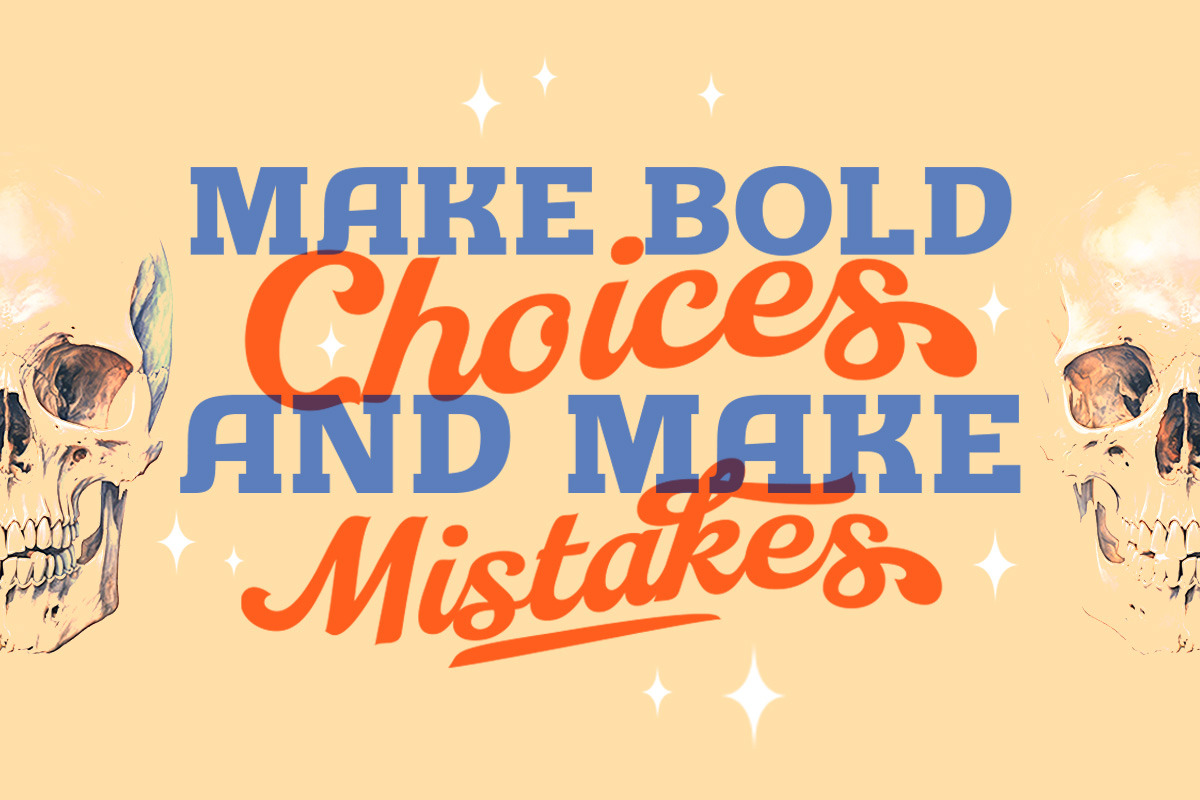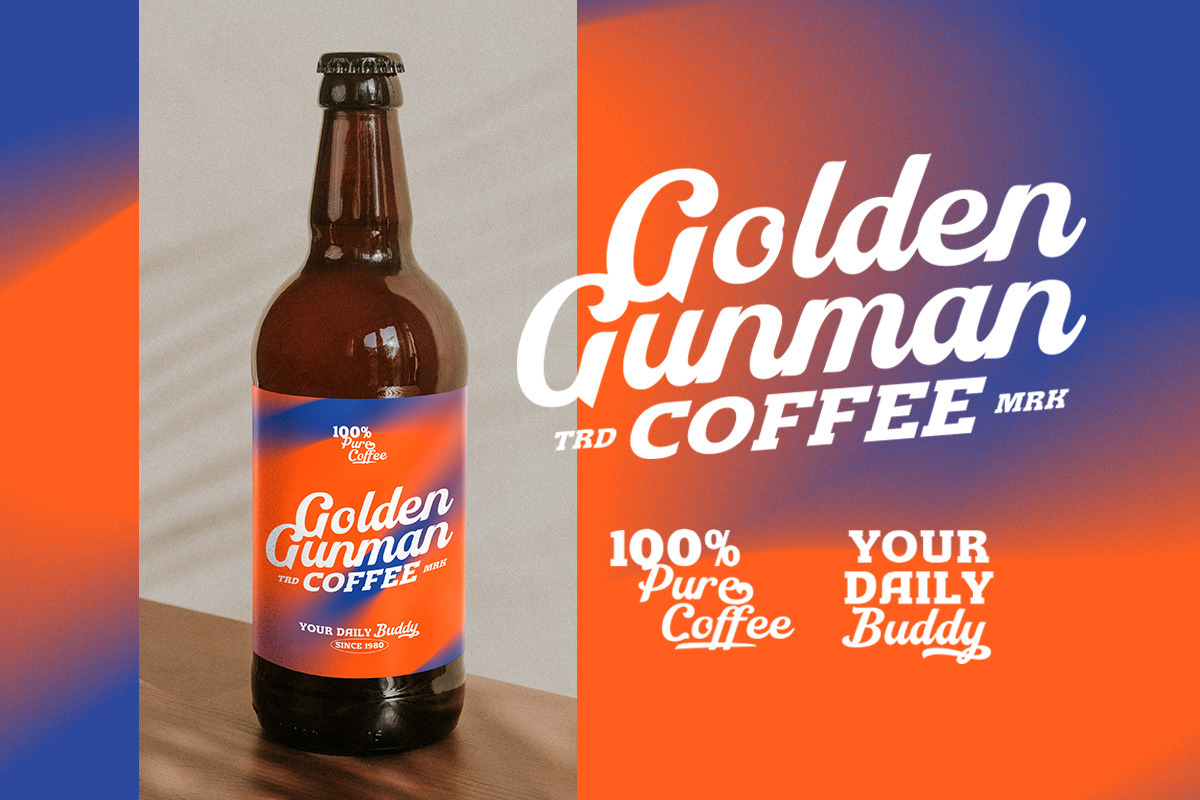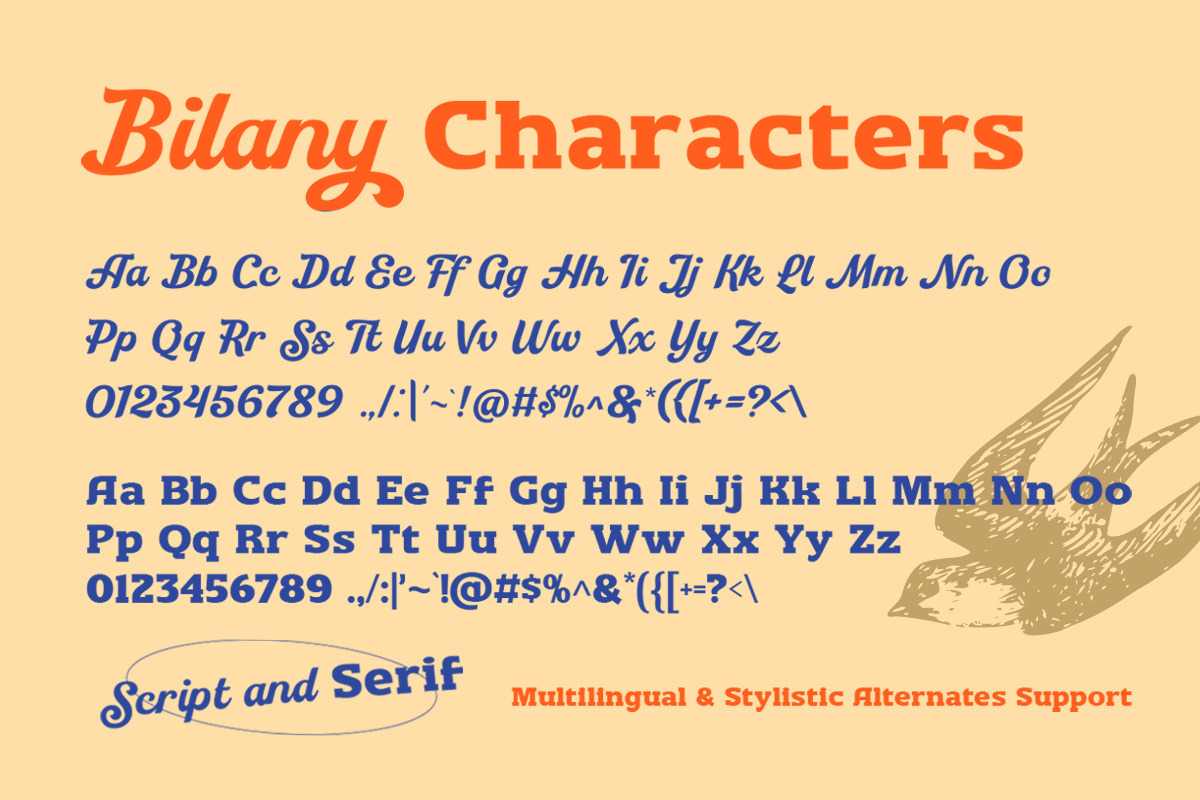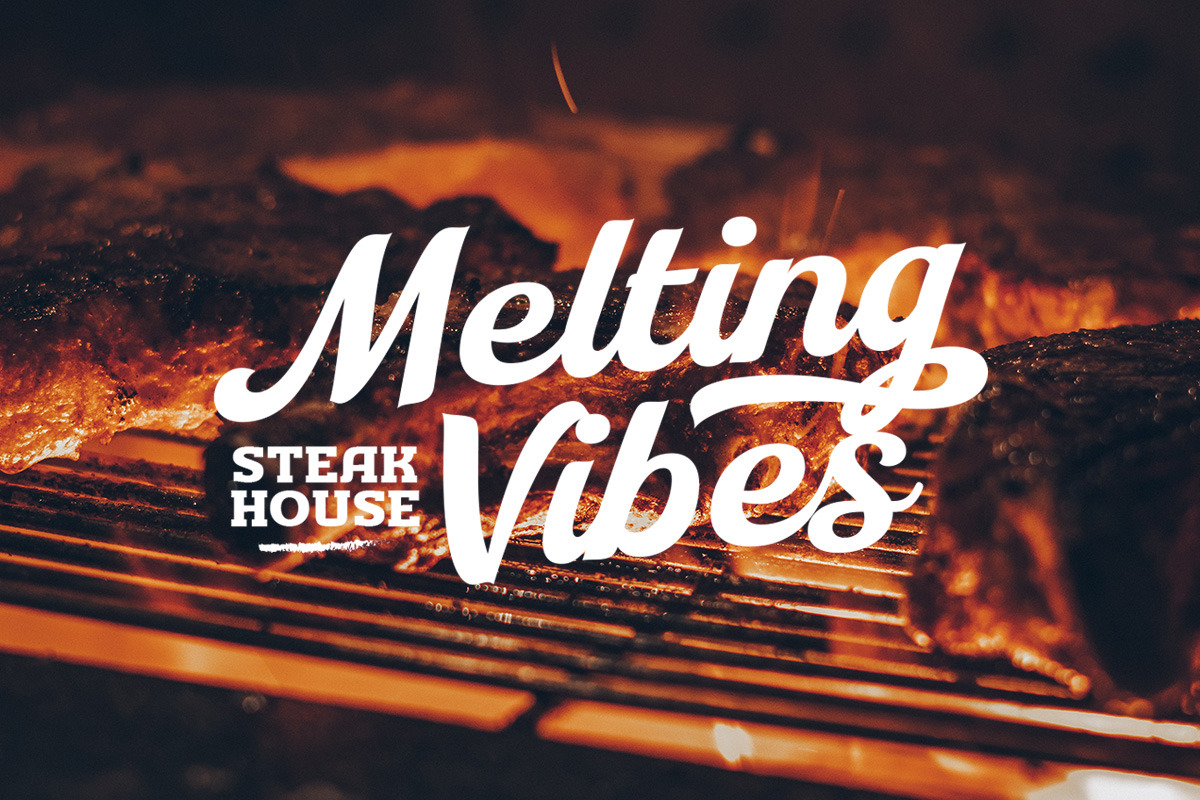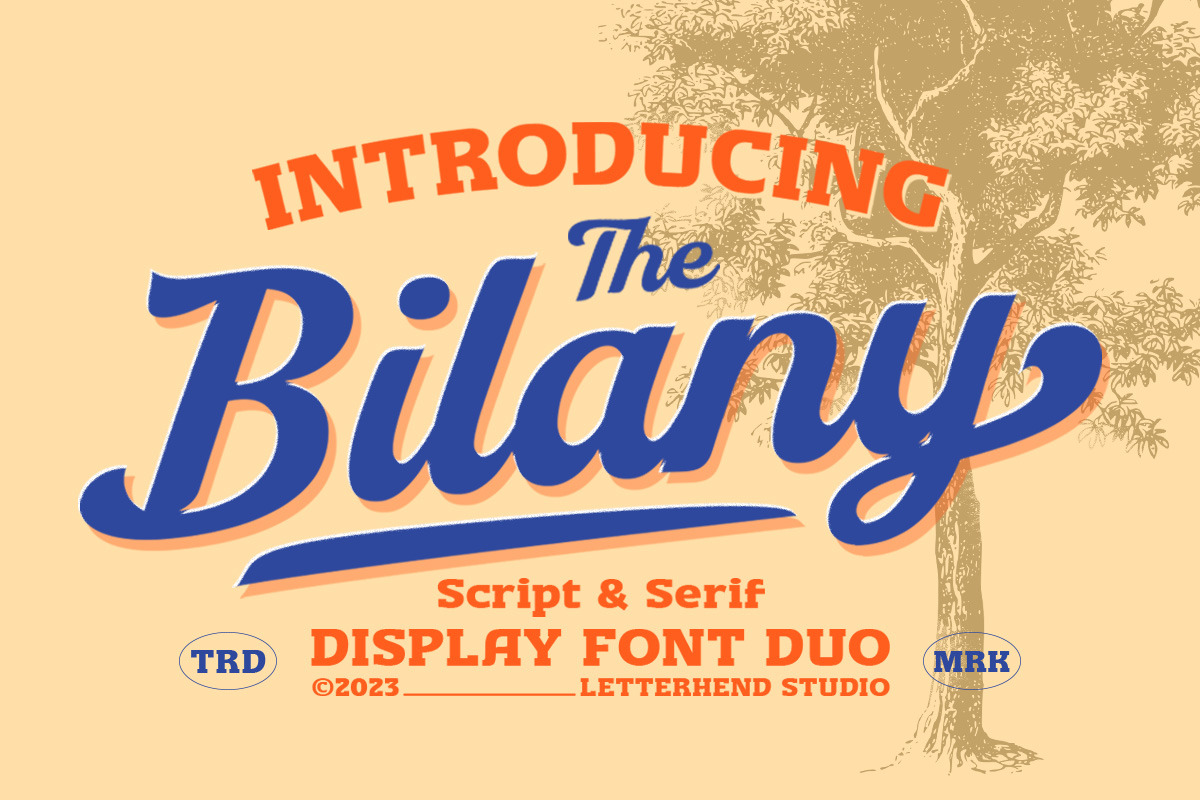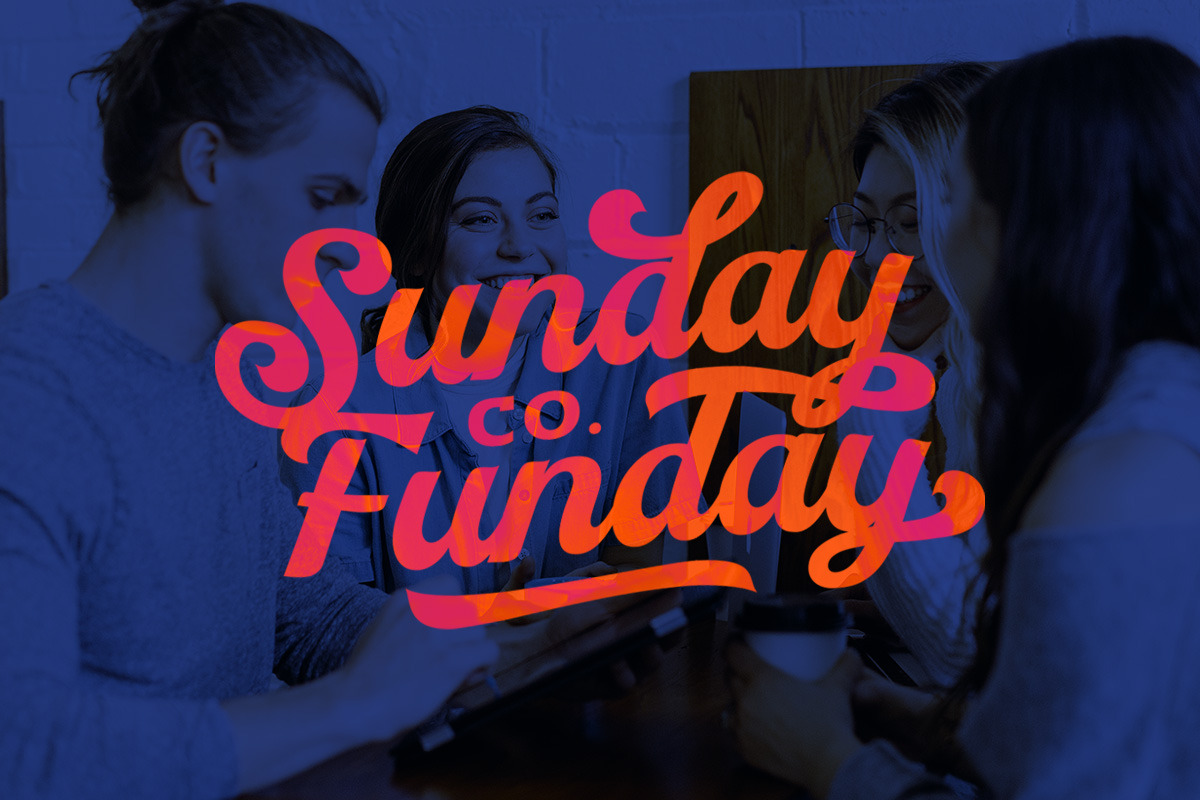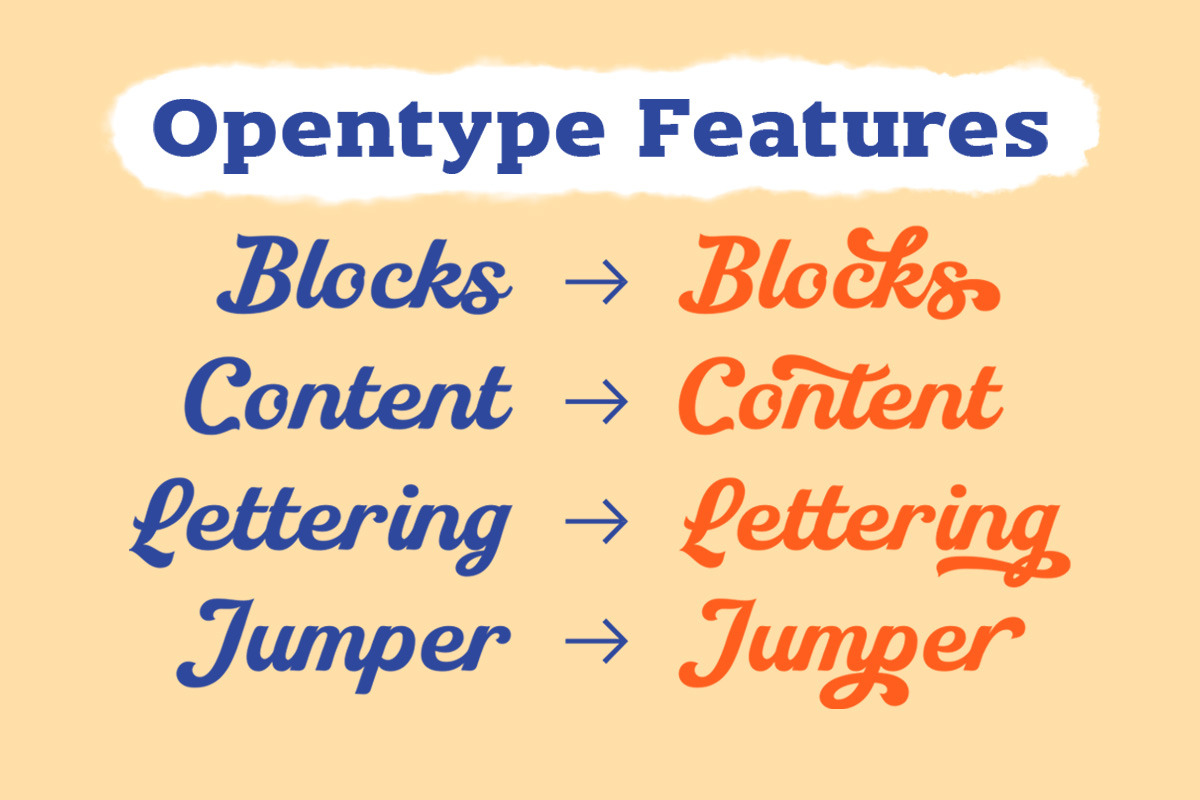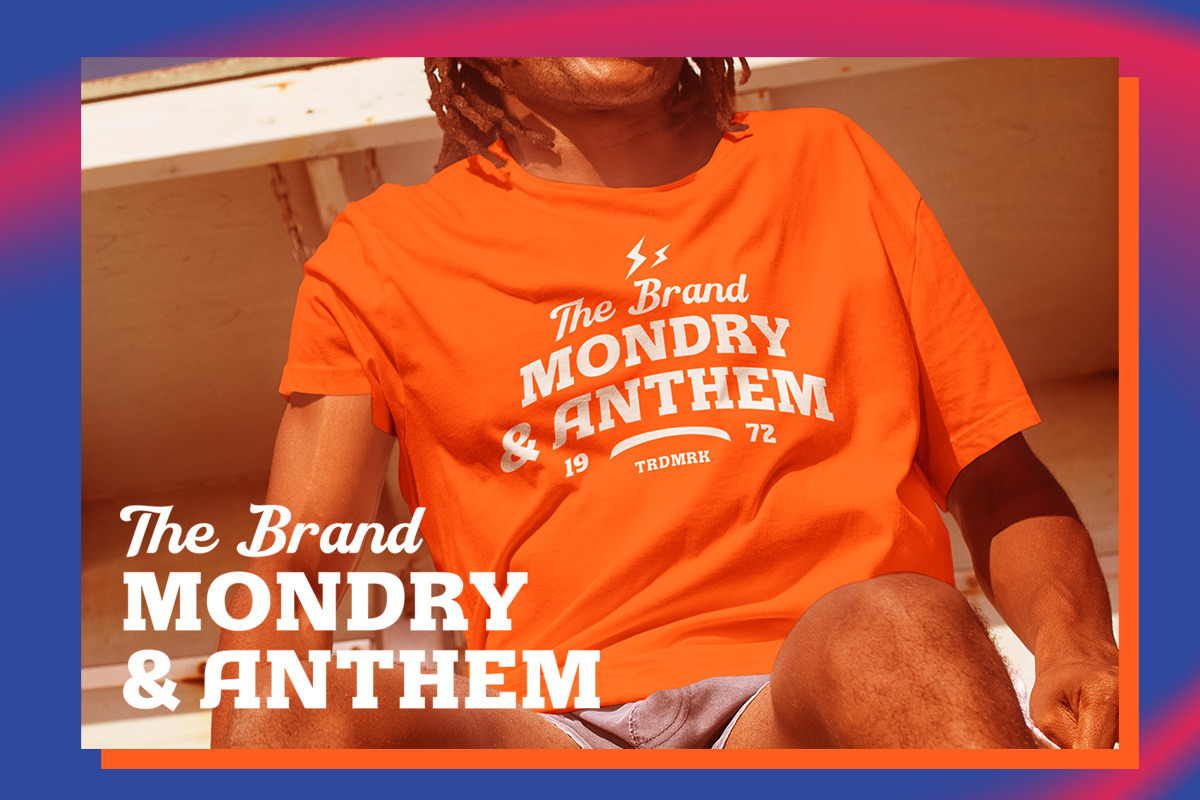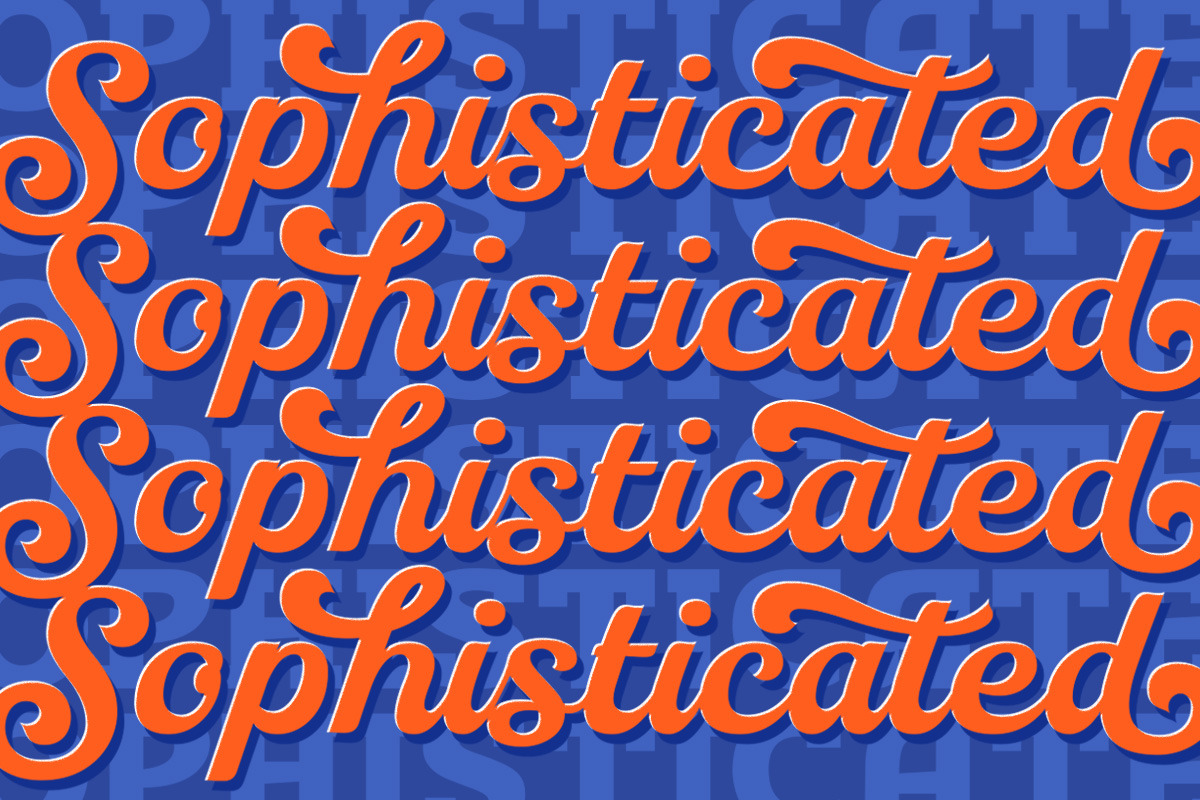
The Bilany - Display Font Duo
The Bilany is a font duo package contain a classic script and slab serif which looks great to be paired especially for vintage and adventure theme!
This font duo is purposely made for headline, display or logotype, and the other various formal forms such as invitations, labels, logos, magazines, books, greeting / wedding cards, packaging, fashion, make up, stationery, novels, labels or any type of advertising purpose.